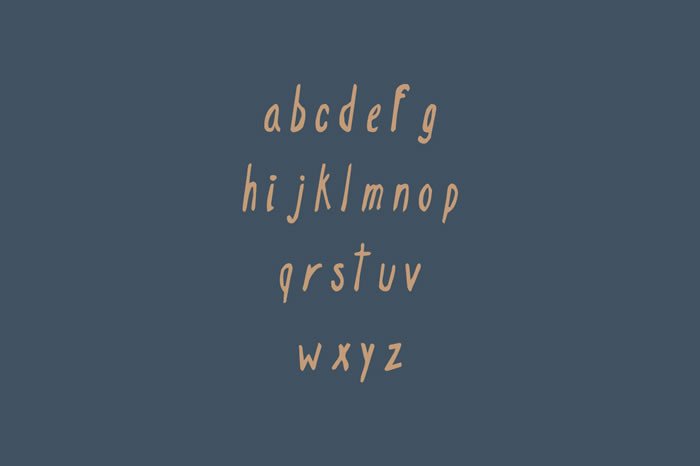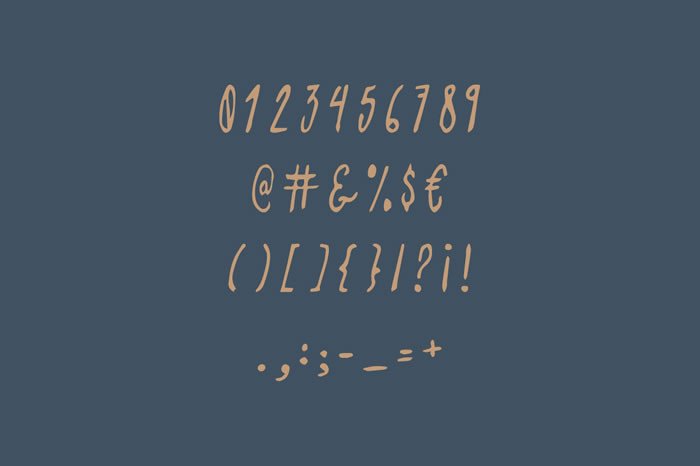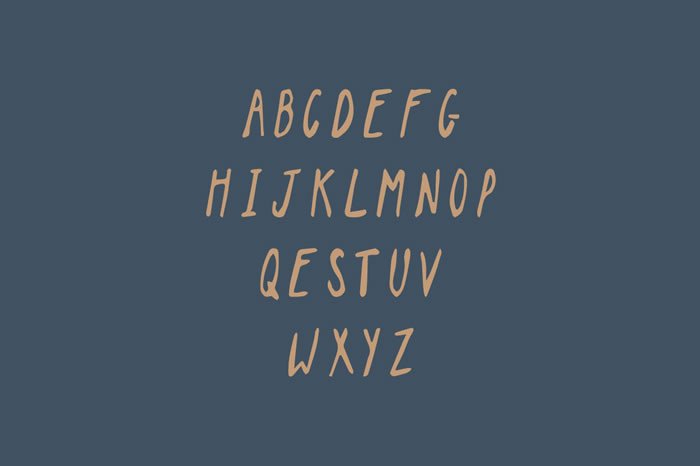
The Ultimate Guide to California Font: A Designer’s New Best Friend
I’ll never forget the time I was working on a birthday party invitation project, and my client asked for a font that was “cool, fun, and totally California vibes.” I scoured the internet, tried a million different fonts, but nothing seemed quite right. That was until I stumbled upon the California font. It was love at first sight! 🎉 In this article, I’ll share my experience with this amazing typeface, its features, and how to make the most of it in your designs.
What is California Font?
California typeface is a cool font which can be used for invitations, posters, headers, flags, birthdays, logos, and much more. Its unique blend of modernity and playfulness makes it perfect for designers, crafters, and creative hobbyists looking to add a touch of West Coast chic to their projects.
Here’s what I love about California font:
- ✨ Unique and modern design that’s perfect for making a statement
- ✅ Highly versatile and can be used for a wide range of projects
- 💃 Supports OpenType features, glyphs, and stylistic alternates, giving you plenty of creative options
- 👍 Great for both digital and print designs
And, of course, no font is perfect. Here are a few quirks to keep in mind:
- 🤔 May not be the best choice for very small text sizes, as some details can get lost
- ⚠️ Limited availability of certain language scripts
The Story Behind California Font
California font was designed with the West Coast vibe in mind. Its creator wanted to capture the laid-back, yet modern spirit of California, and put it into a font that would be fun to use and highly versatile. Whether you’re a designer, crafter, or hobbyist, California font is sure to bring a touch of that California cool to your projects.
| Is California font suitable for body text? | While California font is beautiful, it’s best suited for headlines, titles, and short paragraphs. For body text, you might want to choose a more traditional font. |